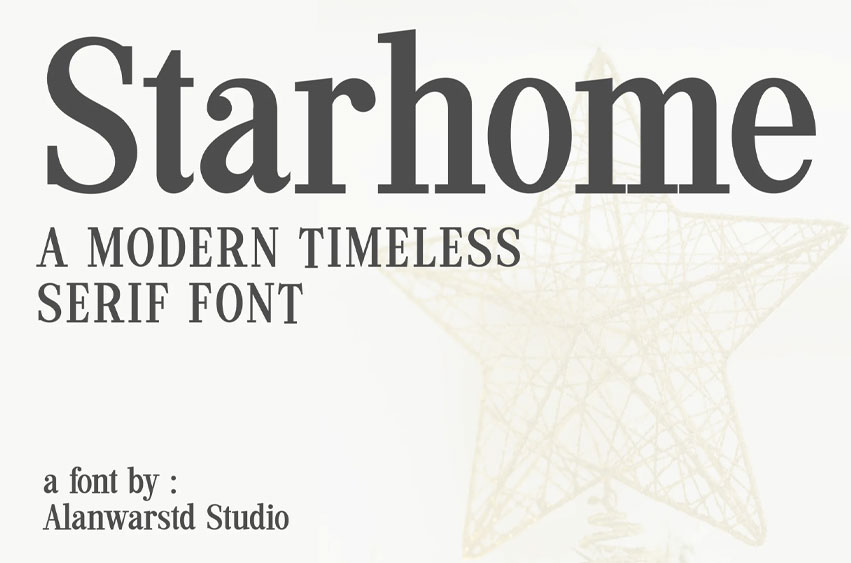
Starhome Font
Starhome Font is a Modern Timeless Serif Font is a regular and authentic display font. The font is suitable for any branding project like logo, esport, and many more.